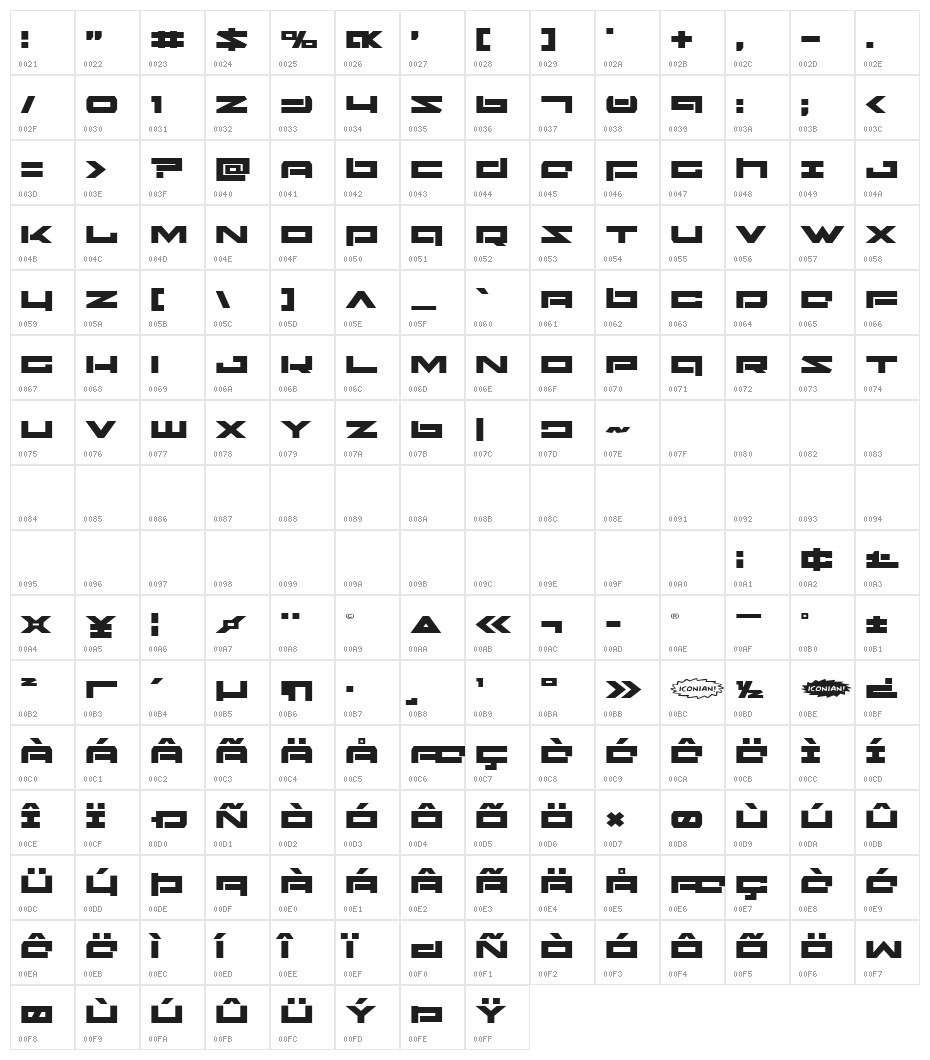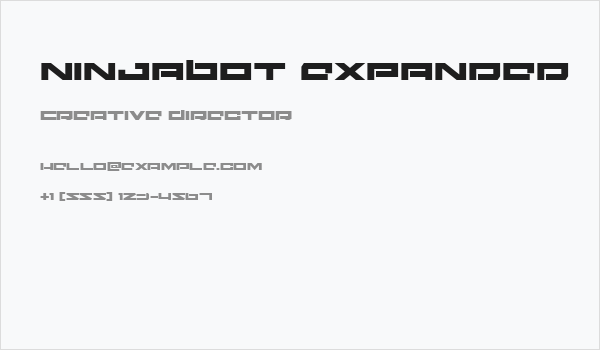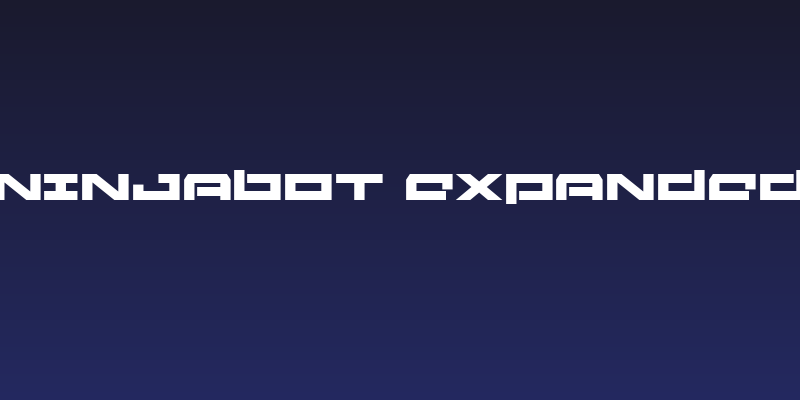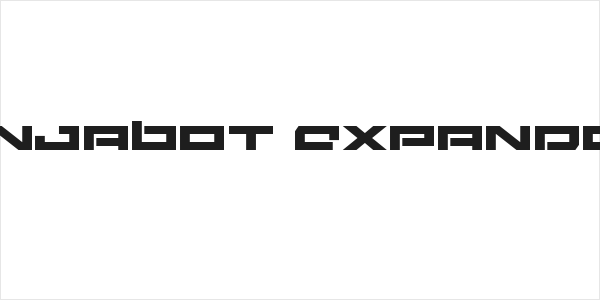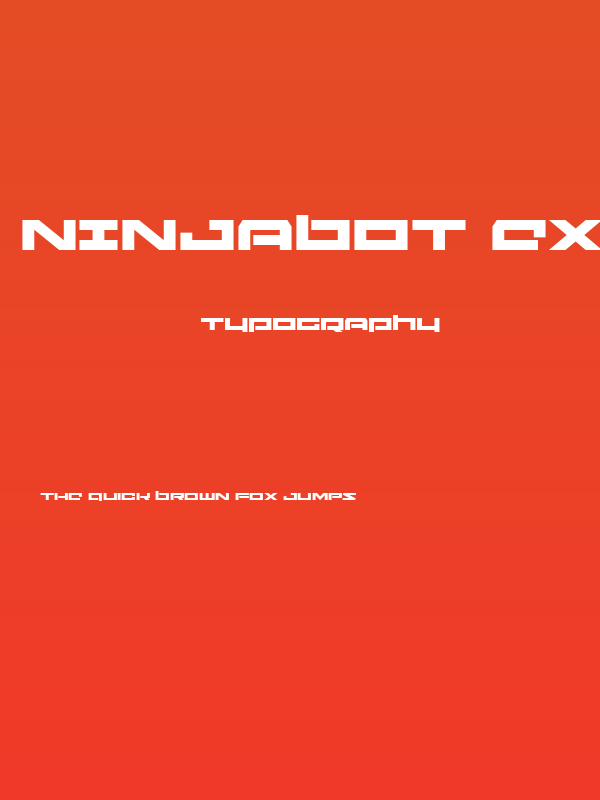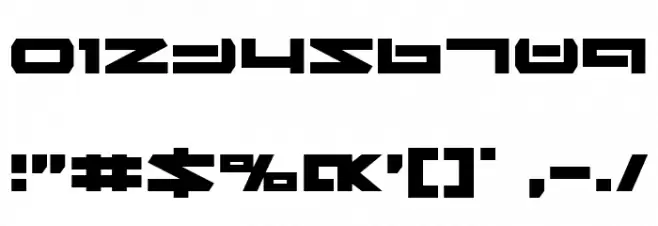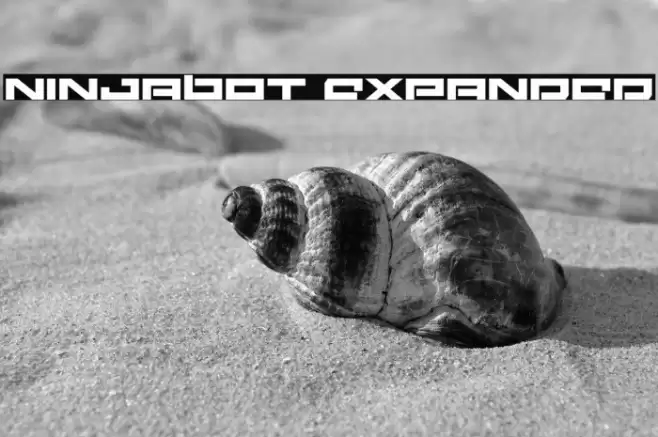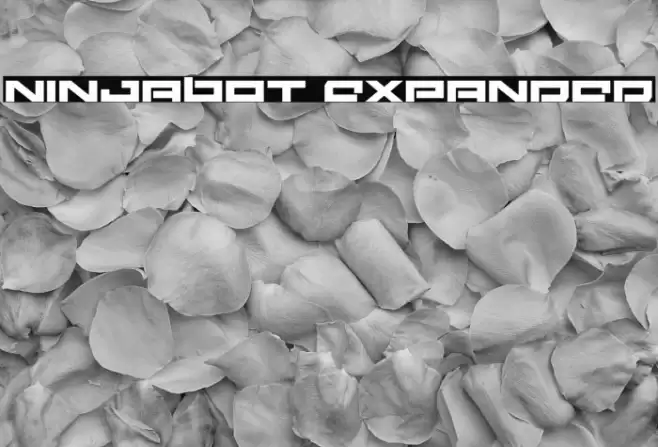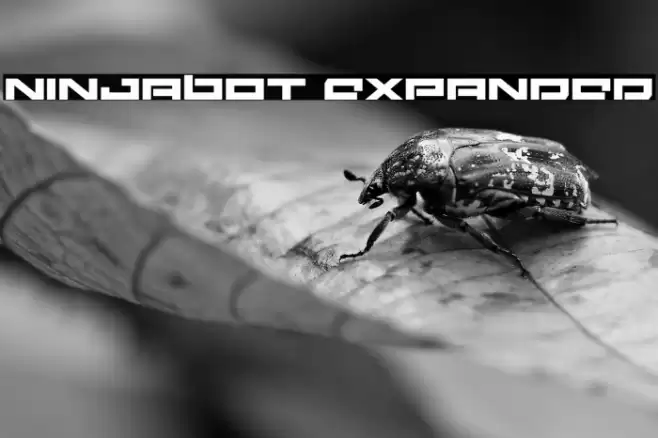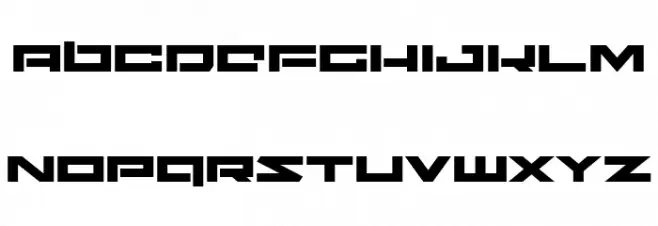
Ninjabot Expanded Font
Ninjabot Expanded Description
This font features a bold, geometric design with a futuristic and robotic aesthetic. The characters are constructed with sharp angles and straight lines, giving them a mechanical and structured appearance. The uppercase and lowercase letters maintain a consistent style, with a uniform height and width that enhances the font's blocky and solid look. The numbers and special characters follow the same design principles, ensuring a cohesive visual identity across all glyphs. The font's unique style makes it ideal for projects that require a modern and tech-inspired feel.
| Proposed Projects | Ideal for tech-related branding, video game titles, sci-fi movie posters, and digital interfaces. |